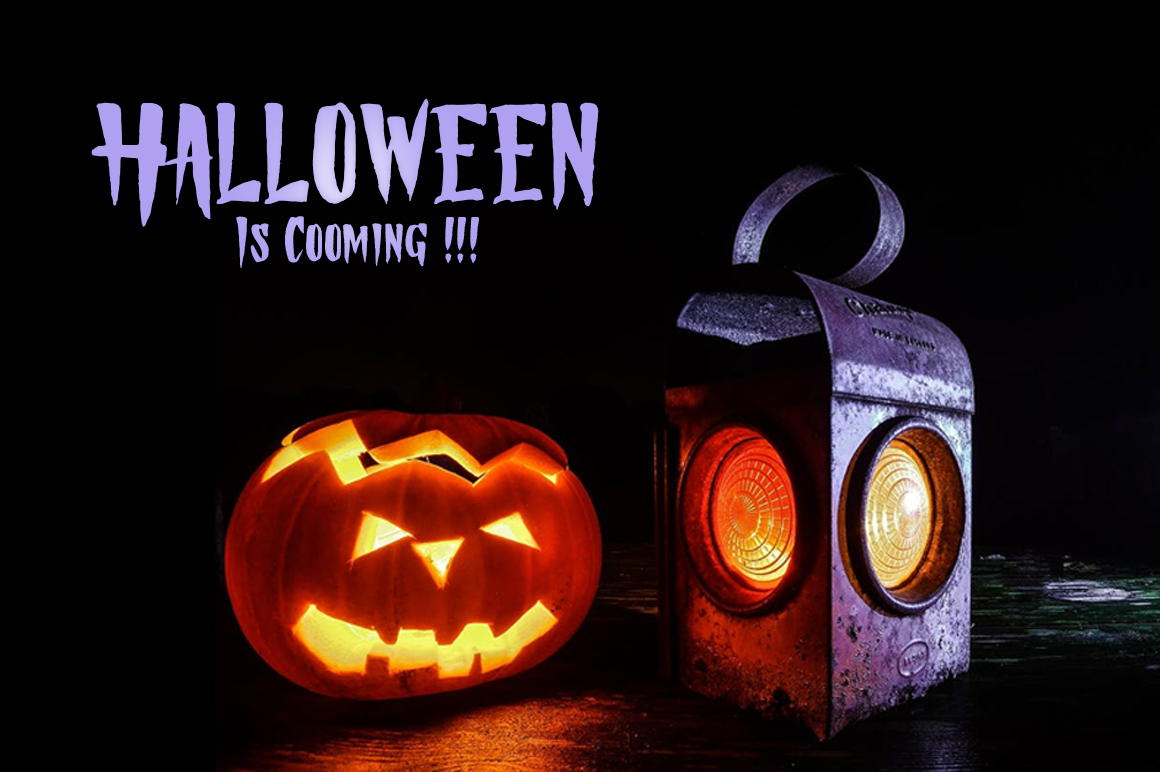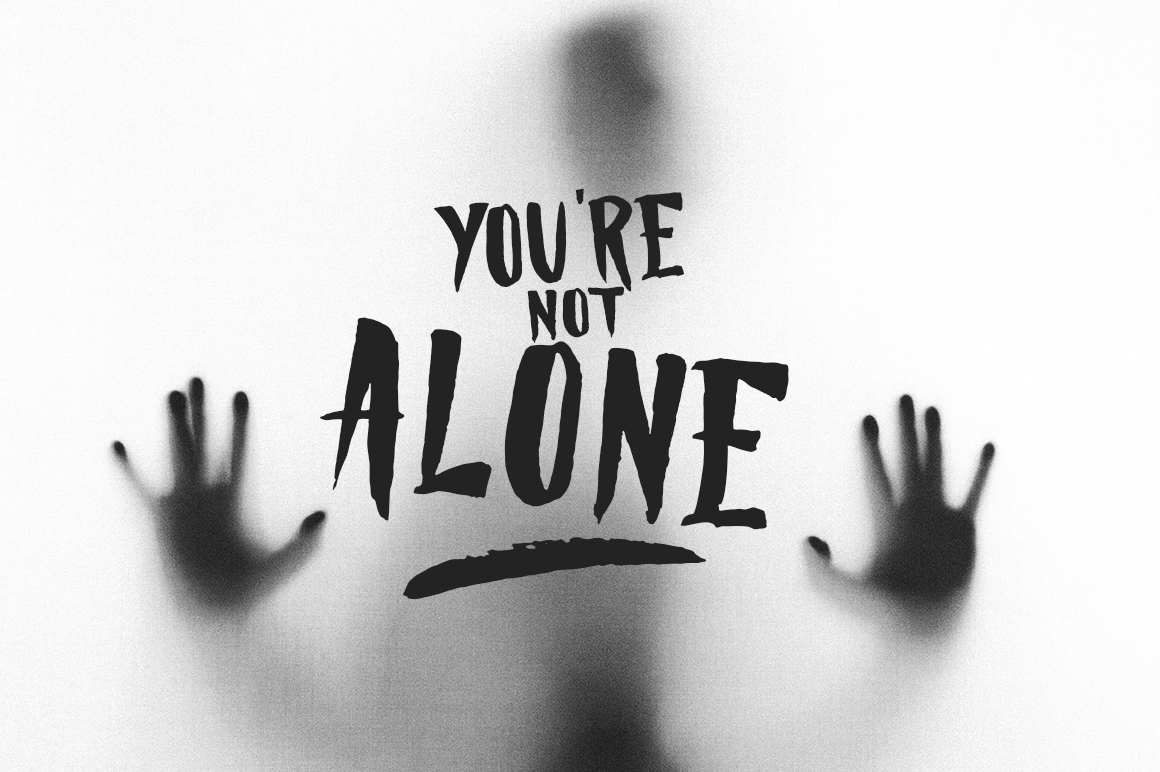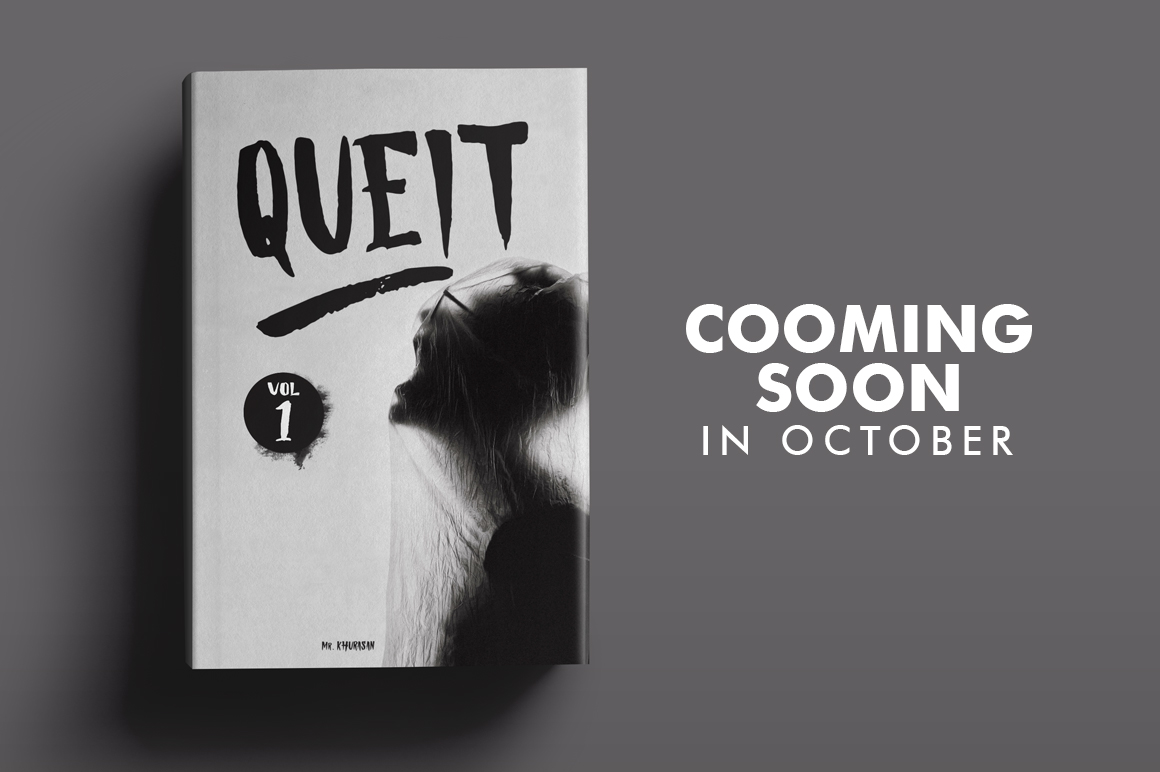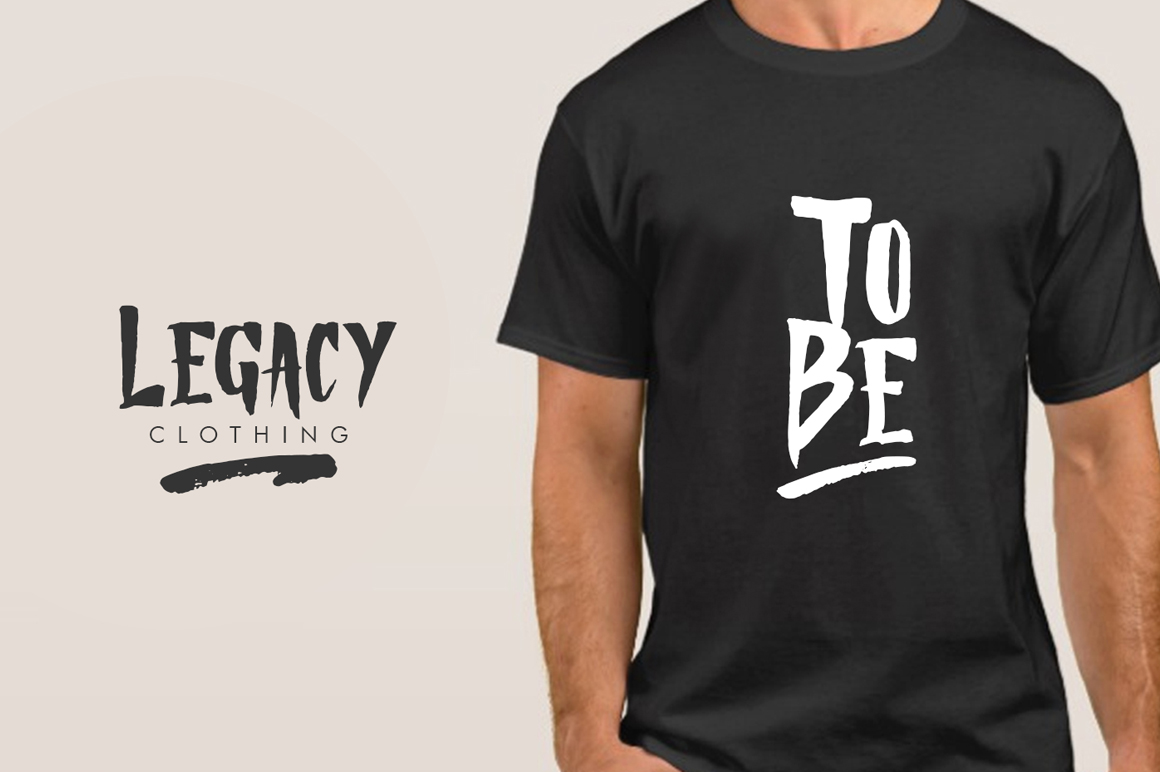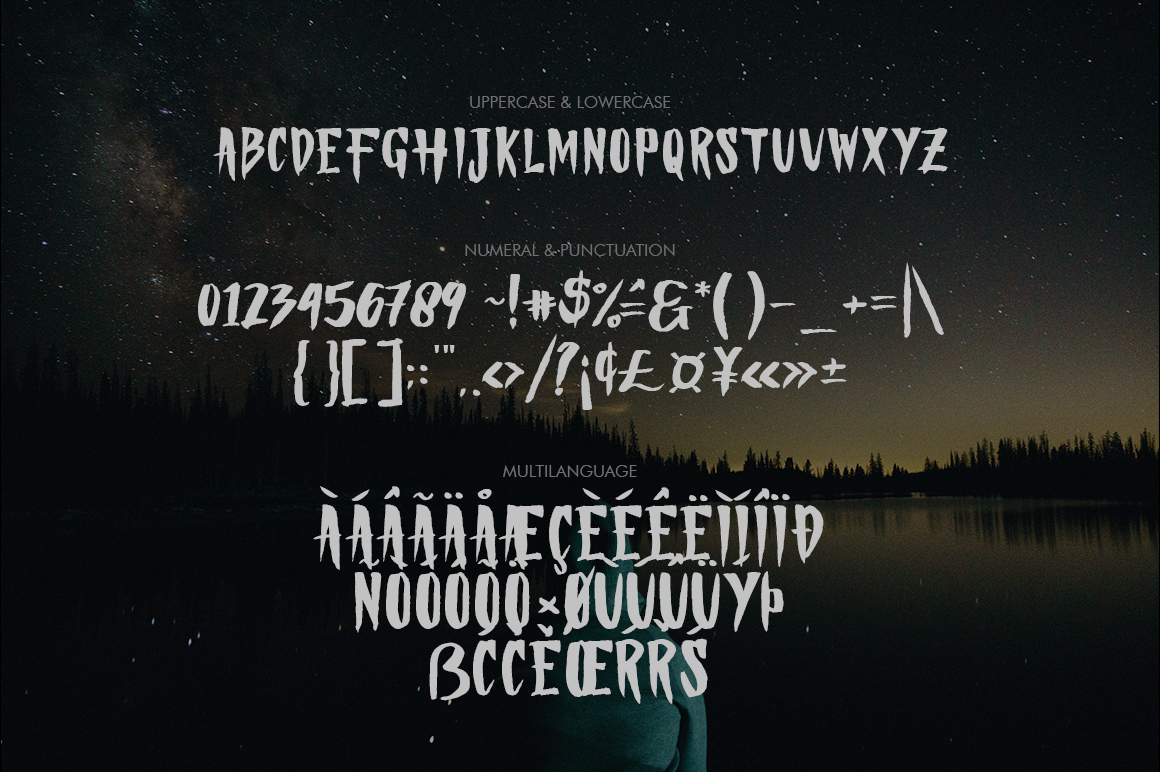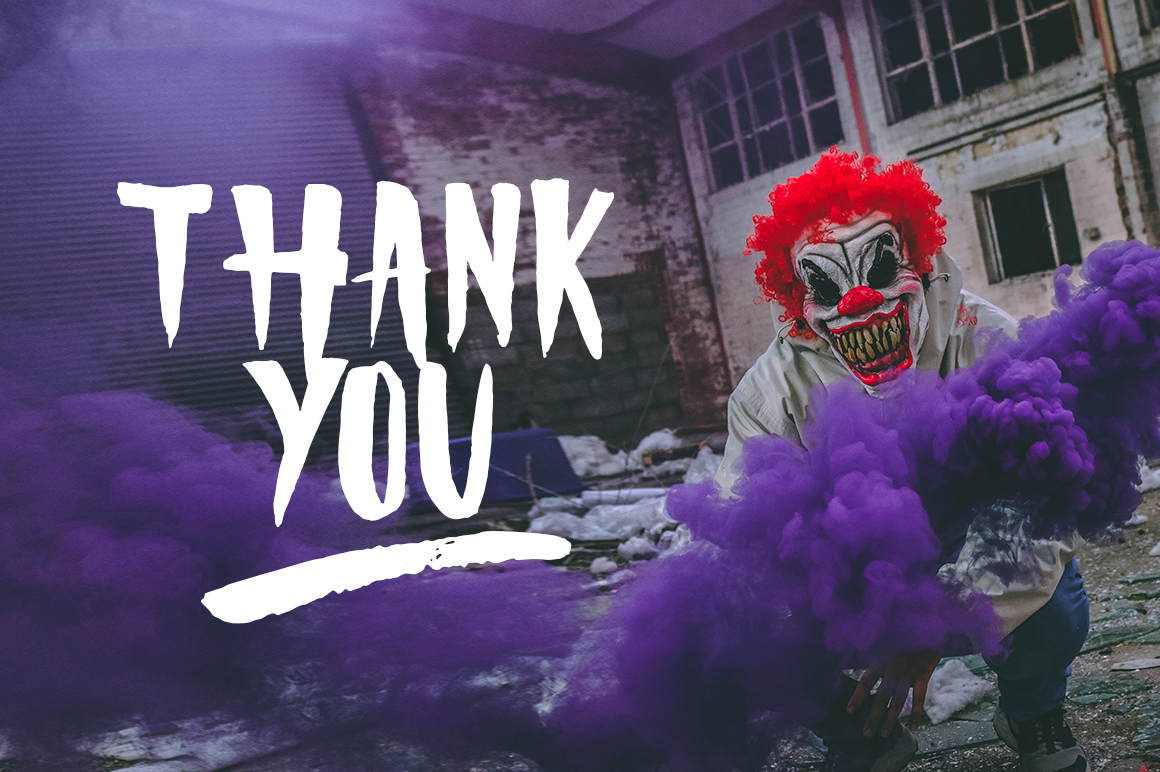
Gloomy Night Font: Add an Edgy Touch to Your Designs
Are you tired of using the same old fonts in your designs? Do you want to add a touch of quirkiness and edginess to your projects? Look no further than the Gloomy Night Font. This display font is created with a marker pen and features a unique, rough approach that is sure to make your designs stand out from the crowd.
What is Gloomy Night Font?
Gloomy Night Font is a display font that is designed to add a touch of edginess to your designs. It is created with a marker pen, which gives it a rough, hand-drawn look that is perfect for designers who want to add a bit of quirkiness to their projects. The font features a unique, irregular style that is sure to grab attention and make your designs stand out.
Characteristics of Gloomy Night Font
Gloomy Night Font has several characteristics that make it a great choice for designers who want to add an edgy touch to their projects. Some of its key features include:
- Quirky style: Gloomy Night Font has a unique, quirky style that is sure to add a touch of personality to your designs.
- Rough approach: The font’s rough approach makes it perfect for designers who want to add a bit of edginess to their projects.
- Marker pen feel: The font is created with a marker pen, which gives it a hand-drawn look that is perfect for designers who want to add a touch of whimsy to their projects.
- Display font: Gloomy Night Font is a display font, which means it is designed to be used in large sizes to grab attention.
Uses for Gloomy Night Font
Gloomy Night Font is a versatile font that can be used in a variety of projects. Some of its potential uses include:
- Posters and flyers: Gloomy Night Font is perfect for creating eye-catching posters and flyers that need to grab attention.
- Logos and branding: The font’s unique style makes it a great choice for designers who want to create a memorable logo or brand identity.
- Social media graphics: Gloomy Night Font can be used to create eye-catching social media graphics that are sure to stand out in crowded feeds.
- Packaging design: The font’s quirky style makes it a great choice for designers who want to add a touch of personality to their packaging designs.
Tips for Using Gloomy Night Font
Here are a few tips for using Gloomy Night Font in your designs:
- Use it sparingly: Gloomy Night Font is a display font, so it’s best to use it sparingly to avoid overwhelming your design.
- Pair it with a simple font: Pairing Gloomy Night Font with a simple font can help to create contrast and make your design more readable.
- Experiment with colors: Gloomy Night Font looks great in bold, bright colors, so don’t be afraid to experiment with different color schemes.
Gloomy Night Font is a unique and versatile font that is perfect for designers who want to add a touch of edginess to their projects. Its quirky style and rough approach make it a great choice for designers who want to create eye-catching posters, logos, social media graphics, and packaging designs. With its marker pen feel and display font style, Gloomy Night Font is sure to add a touch of personality to your designs and make them stand out from the crowd.